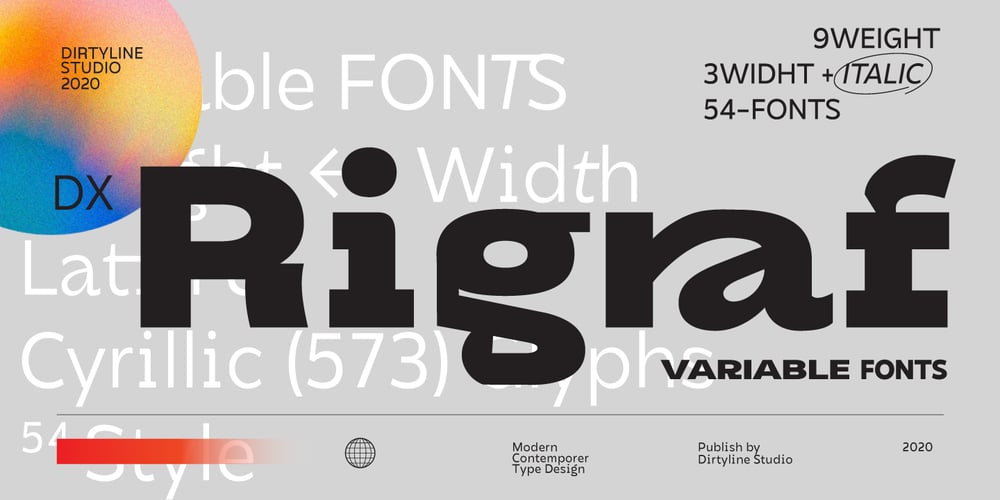
DX Rigraf Font Family was designed by Hendra Maulia and published by Dirtyline Studio. DX Rigraf contains 53 styles and family package options. Dx Rigraf is an exciting Modern humanist typeface with contemporary monospace touches. It’s born from strong elementary shapes, with clean circles interwoven with modern cuts and sharp edges. It has been designed as a variable font to give lots of options and access to unique type looks; however it also includes nine weights to give just as much access to creativity to those without access to variable supporting software. Its distinctive character and many variables make it a versatile, stylish workhorse, great for interfaces and design.Dx Rigraf sans serif font family of 9 weights, 3 Style Width with matching italics- 54 styles all in 1 Variable font.